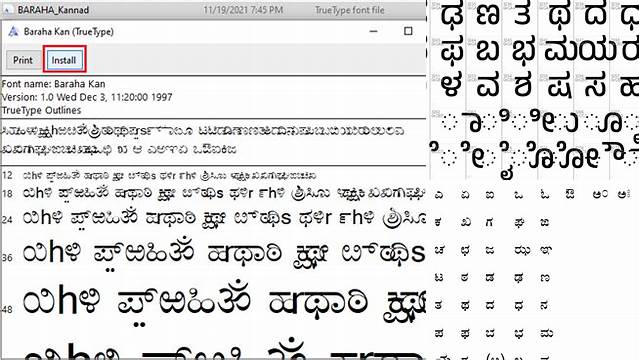
Kannada Font: Free Unicode Downloads & Guide
Are you looking to download Kannada Unicode fonts for free? You've come to the right place! This comprehensive guide will walk you through everything you need to know about Kannada Unicode fonts, where to find them, how to install them, and how to use them effectively. Whether you're a student, a designer, or simply someone who wants to type in Kannada on your computer, this article has got you covered.
Understanding Kannada Unicode Fonts
Before diving into the download process, let's understand what Kannada Unicode fonts are and why they are important. Kannada Unicode fonts are digital typefaces that conform to the Unicode standard, which is a universal character encoding standard. This standard assigns a unique code point to each character, irrespective of the platform, program, or language. This means that when you use a Kannada Unicode font, your text will be displayed correctly on any computer or device that supports Unicode, regardless of the operating system or software installed.
The importance of using Unicode fonts cannot be overstated. In the past, non-Unicode fonts were common, but they often led to compatibility issues. Text created with these fonts might not display correctly on different systems, making it difficult to share and collaborate on documents. Unicode fonts solve this problem by ensuring consistent display across all platforms. For Kannada, this means that anyone, anywhere in the world, can read and write Kannada text without encountering garbled characters or display errors. Embracing Kannada Unicode fonts is essential for ensuring your Kannada content is accessible and readable to a global audience. Additionally, Unicode fonts facilitate the use of Kannada in web design, software development, and various digital applications, making them an indispensable tool for anyone working with the language in the digital realm. So, let’s dive deeper into where you can find these essential fonts and how to make the most of them!
Where to Find Free Kannada Unicode Fonts
Finding high-quality, free Kannada Unicode fonts is easier than you might think. Several reputable websites and resources offer a wide variety of fonts suitable for different purposes. Here are some of the best places to look:
Google Fonts: Google Fonts is a fantastic resource for free, open-source fonts, including several Kannada Unicode fonts. The fonts available on Google Fonts are designed to be web-friendly, meaning they are optimized for use on websites and other digital platforms. They are also easy to embed in your projects.
SIL International: SIL International is a non-profit organization that develops and provides fonts for lesser-known languages, including Kannada. Their fonts are often designed with linguistic accuracy in mind, making them a great choice for academic and scholarly work.
- SIL International offers a range of Kannada Unicode fonts that are meticulously crafted to support the nuances of the Kannada script. These fonts are particularly useful for researchers, linguists, and anyone who requires precise and accurate representation of Kannada characters. The fonts are available for free download from the SIL International website, and they come with detailed documentation to help you understand their features and usage. One of the key benefits of using SIL International fonts is their commitment to linguistic accuracy. They work closely with language experts to ensure that their fonts accurately represent the characters and symbols of the Kannada language. This makes their fonts an excellent choice for anyone who needs to work with Kannada text in a professional or academic setting. Additionally, SIL International provides support and resources to help you get the most out of their fonts, ensuring you can use them effectively in your projects.
lohit-kannada Font: This is a popular Kannada Unicode font that is widely used in Linux distributions. It is a clean and legible font that works well for both body text and headings.
- The lohit-kannada font is a staple in the Linux community, known for its clear and readable design. It's a versatile font that works well in a variety of contexts, from writing documents to designing websites. One of the reasons for its popularity is its excellent legibility, making it easy to read even at smaller sizes. This is particularly important for body text, where readability is paramount. The lohit-kannada font is also easy to install on Linux systems, as it is often included in the default font packages. If you're using a Linux distribution, you likely already have this font installed on your computer. If not, you can easily download it from various online repositories. The lohit-kannada font is a great choice for anyone who wants a reliable and readable Kannada Unicode font that is easy to use and widely supported.
Other Font Foundries: Many other font foundries and individual designers offer free Kannada Unicode fonts. A simple web search for "free Kannada fonts" will reveal a variety of options. However, be sure to download fonts from reputable sources to avoid malware or copyright issues.
- Exploring various font foundries and individual designers can uncover hidden gems and unique Kannada Unicode fonts. While Google Fonts and SIL International offer excellent options, there are many other talented designers who create and share their fonts for free. A simple web search can lead you to these resources, but it's essential to exercise caution and download fonts only from reputable sources. Look for websites with clear licensing information and positive reviews from other users. This will help you avoid downloading fonts that may contain malware or violate copyright laws. When you find a font you like, be sure to read the license agreement carefully to understand how you can use it. Some fonts may be free for personal use but require a commercial license for business purposes. By taking these precautions, you can safely explore the world of free Kannada Unicode fonts and find the perfect typeface for your project. Remember, using the right font can significantly enhance the visual appeal and readability of your Kannada text, so it's worth taking the time to find the perfect match.
By understanding the importance of Unicode, knowing where to find free fonts, and following the installation and usage tips, you'll be well-equipped to create beautiful and accessible Kannada content. Happy typing, folks! Remember, the right font can truly bring your words to life, so choose wisely and enjoy the process.